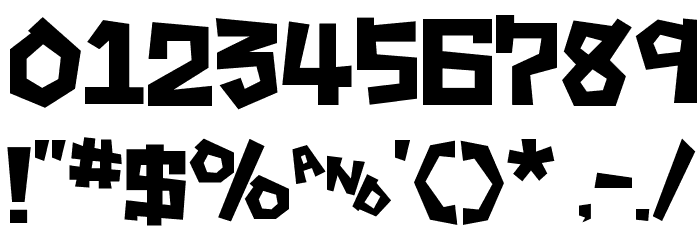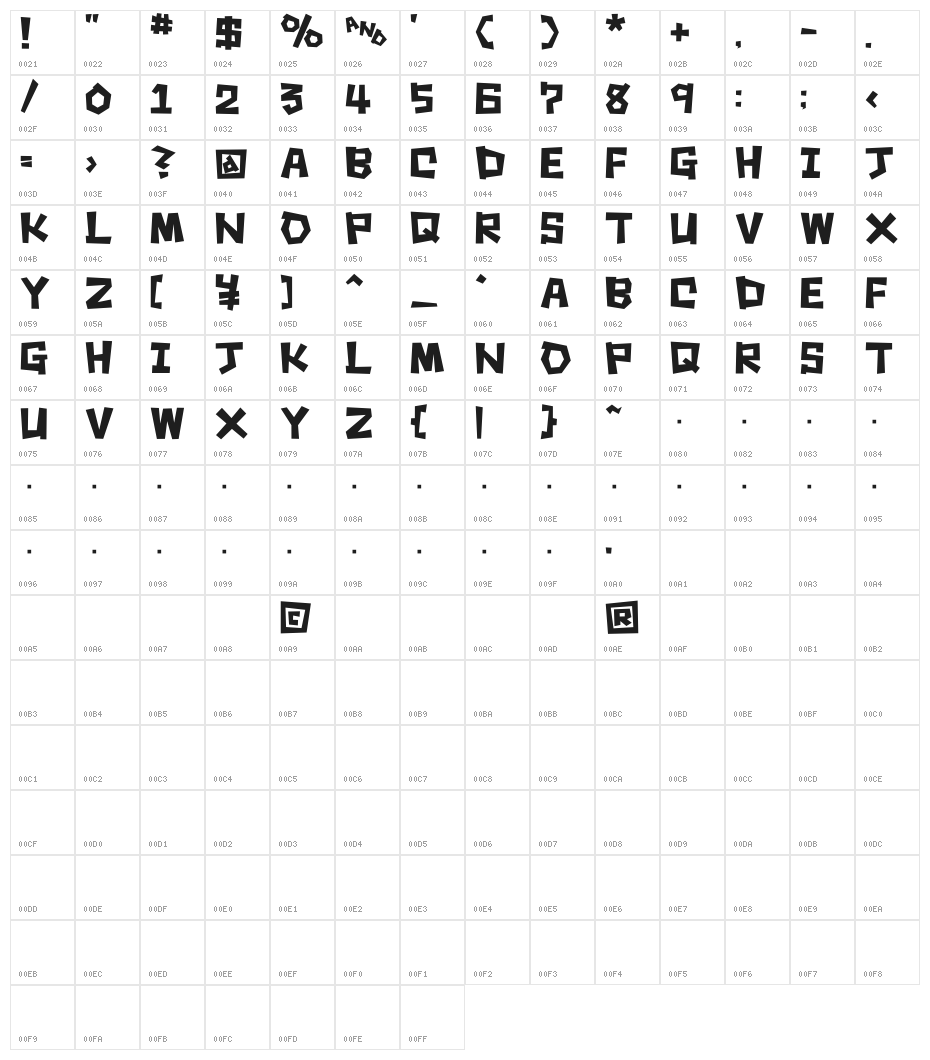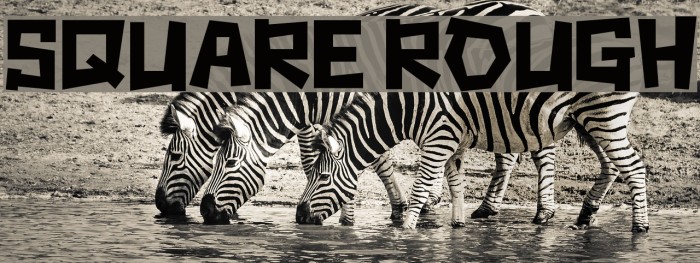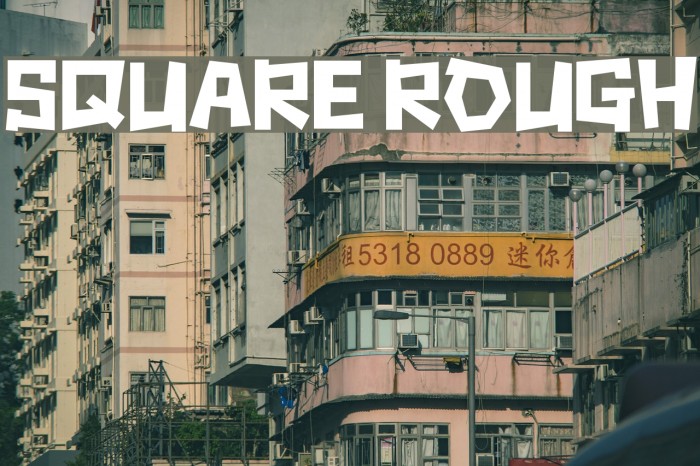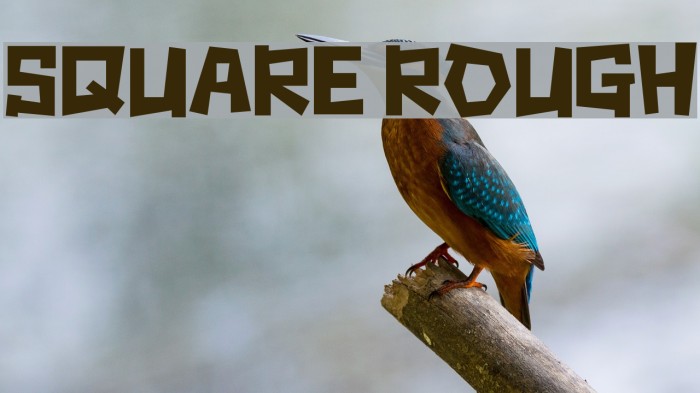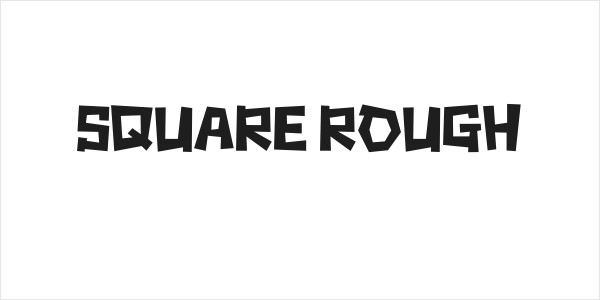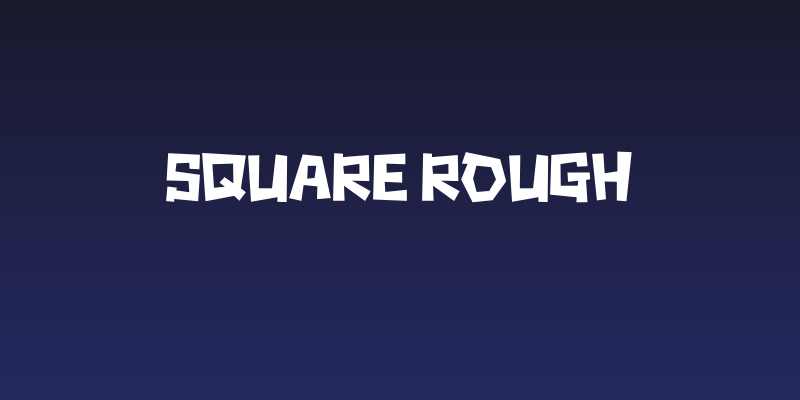
Square rough Font
Square rough Description
This font features a bold, angular design with a rough, edgy appearance. The characters are constructed with sharp, geometric shapes that give them a distinctive, rugged look. The uppercase and lowercase letters maintain a consistent style, with a playful yet aggressive aesthetic. The numbers and special characters follow the same design principles, ensuring uniformity across the font. This font's unique style makes it stand out, with each character appearing as if it has been carved or chiseled, adding to its rough charm.